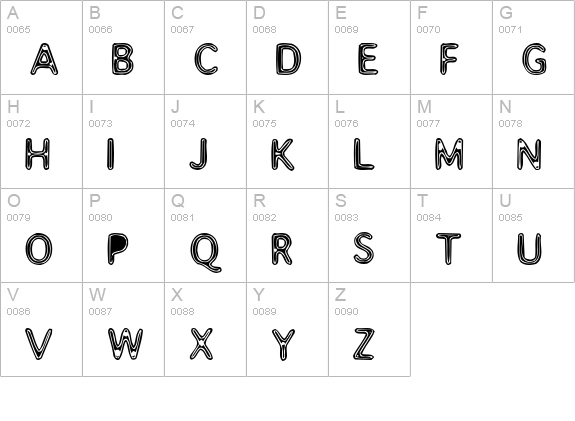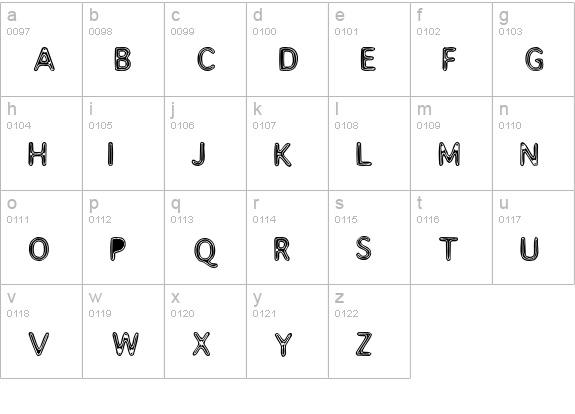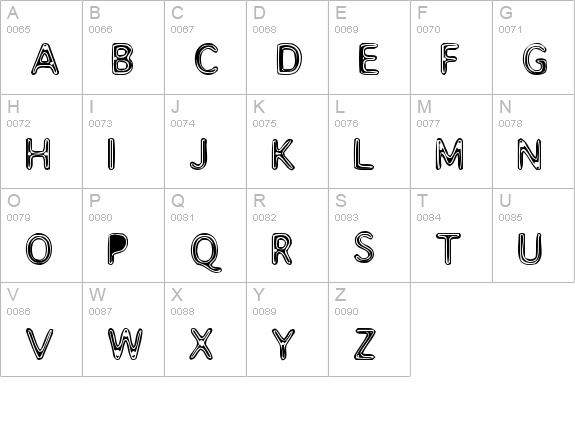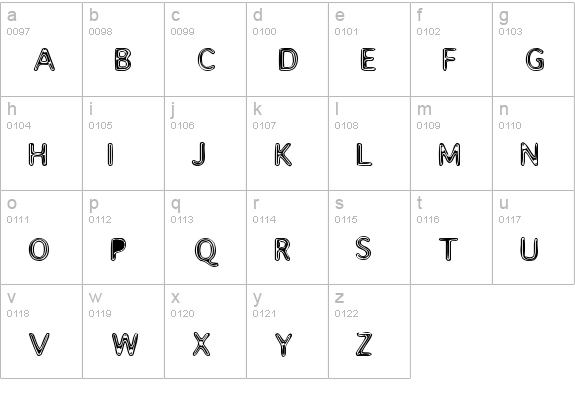
Assimilate font is a modern and stylish typeface that effortlessly blends sleek sophistication with a touch of edginess. With its sharp lines and contemporary aesthetic, this font is perfect for projects that require a bold and impactful look. Whether you're designing a logo, poster, or website, Assimilate font will bring a sense of modernity and professionalism to your work. The best part? Assimilate font is available for free download at FontsMarket.com. Simply head over to the website and get your hands on this versatile typeface to elevate your designs to the next level. Embrace the sleek and stylish vibe of Assimilate font and let your creativity shine!